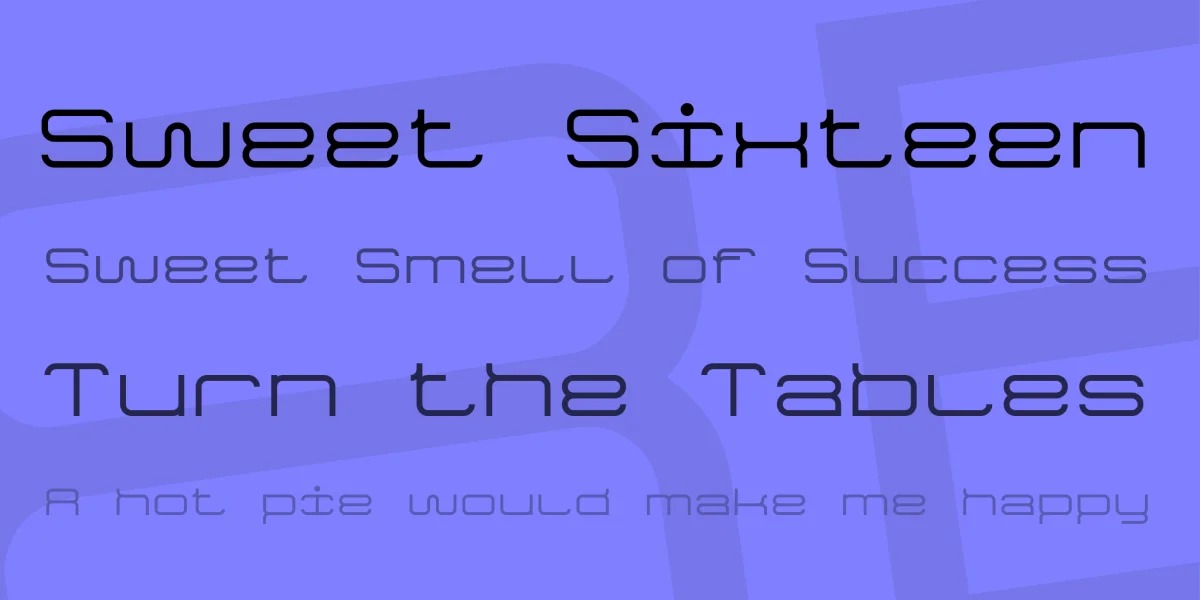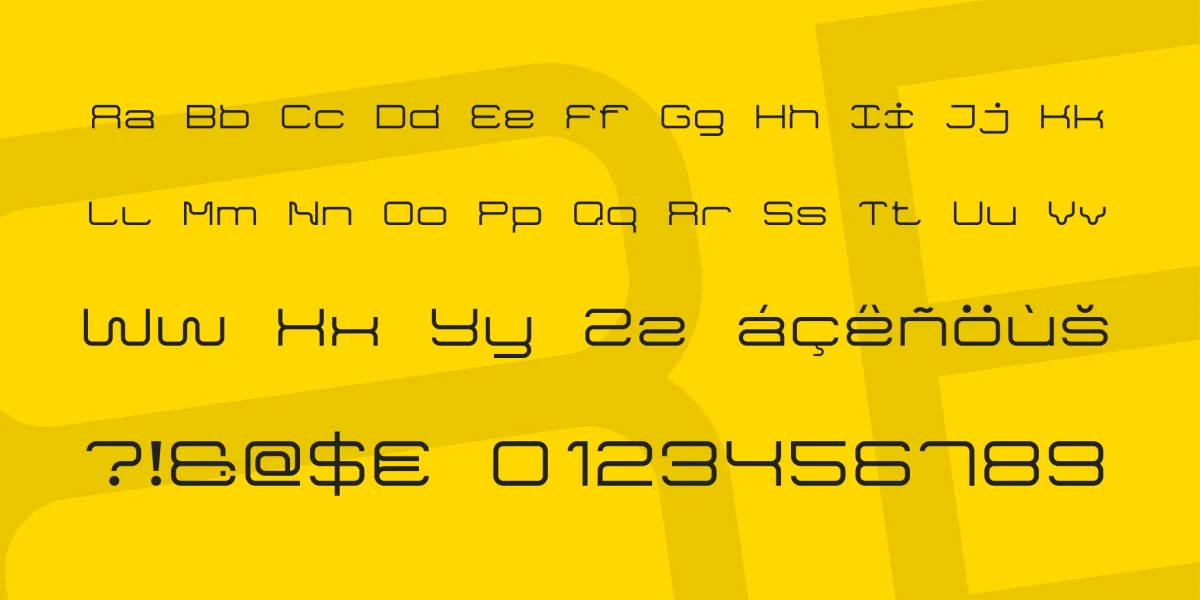
This font was createdespecial for the freeware game Bricks Breaker-7. The font Game Sans Serif 7 is freeware for home use only. Use this link to buy the license. Please enter font name in web form.